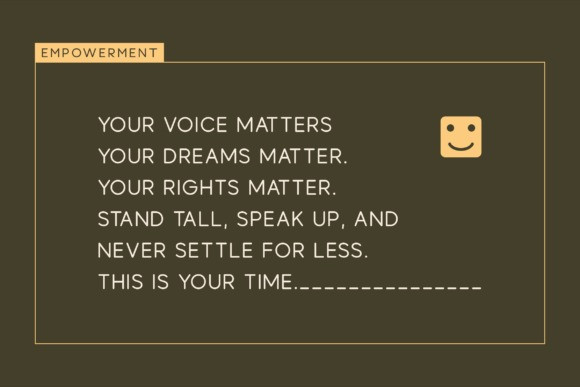
Grondeur Round Font
Grondeur Round Font is a bold, all-caps sans serif font designed for the modern designer. With its clean lines and minimalist aesthetic, this typeface exudes strength and authority. It is perfect for projects that require a sense of professionalism and impact. Whether you’re designing a logo, website, or print material, Grondeur Round makes a statement with its sharp, crisp edges.